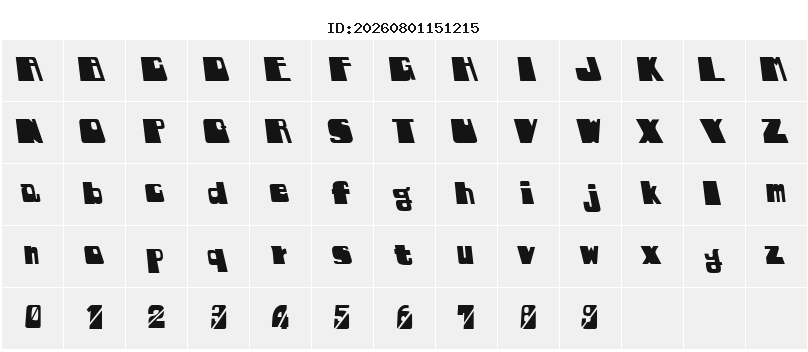
• Font Name: LEFt
• Full Font Name: LEFt
• Copyright: Designed by red NO.02
About LEFt.ttf
LEFt.ttf is a modern, elegant sans-serif font designed for ultimate readability and visual harmony. Perfect for branding, headlines, web design, and print materials.